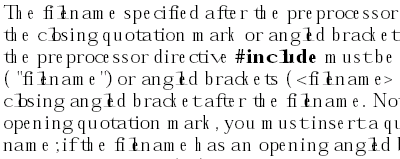
Acrobat Tips: Fonts Can Make or Break PDFs
Acrobat's intelligent font substitution is a godsend for office documents, but it can be a nightmare in situations where font fidelity is important. If you're a graphic designer, then you need to know how to work with fonts in PDFs. PlanetPDF has the answers.
Editor's Note: The following article was written with Acrobat 5 in mind and does not specifically discuss the recently released Acrobat 6, although it has been reviewed for accuracy and relevance to the new software.
A prime reason for using PDF as a format has to do with its ability to retain graphic appearance and layout; Acrobat's font handling mechanisms are a key aspect of the portability of PDF files.
When fonts used in the source file PDF are embedded in the PDF, Acrobat has the original font information at its disposal. If fonts are not embedded, Acrobat uses the partial font information saved in the PDF (name, width of different letters, and style characteristics) to locate the required fonts in the system where the PDF is viewed or (if no fonts are found) to simulate its appearance using substitution fonts.
When graphic fidelity is important, a PDF file should be produced so that all fonts used in it are embedded. While font substitution may be reasonably successful in conveying the general appearance of many fonts, it is a design compromise at best as it will never result in a precise match, and with some fonts it may be unacceptable.
To reduce file size when fonts are embedded, font subsetting can be employed so that only the characters actually used in the PDF will be embedded. As typically only a small portion of the characters included in a font is actually used in a specific document, the result is a significant reduction of font data. This is especially the case with fonts that store many hundreds or even thousands of characters (Far Eastern, Unicode, or OpenType fonts).
Subsetting will limit or prevent editing operations (text editing or insert/replace page operations). This is generally not an issue with PDFs distributed as final documents to be viewed or printed elsewhere. If these editing operations are anticipated as part of the specific PDF life cycle, don't use subsetting. Take into account, however, that subsetting may take place by default already at the PostScript driver level.
Fonts that cannot be reasonably substituted by Acrobat must be embedded, regardless of file size issues. This applies to special symbol/logo fonts, or to fonts with special styles (such as script fonts). Depending on the specific font characteristics, this may take place automatically, even when embedding is turned off, when Acrobat identifies such a font.
To further reduce file size related to font storage, you can specify that the Base-14 fonts will not be embedded. These include the Helvetica, Times, Courier standard font families (regular, italic, bold, bold italic), Symbol, and Dingbats. Acrobat Reader installations include fonts that fully match these fonts' functionally (identical character widths, but a slightly different design). When you decide not to embed fonts, inspect the results of font substitution, which will equally apply to viewing and printing. This can be done with View> Use Local Fonts. When this setting is disabled, fonts that are not embedded in the PDF will be simulated, even if they are installed in the computer where the PDF is viewed. Notice that in some cases, font substitution results in serious spacing problems or highly distorted letter shapes (see Figures 1 and 2).
Figure 1a: Actual Fonts
Figure 1b: Substituted Fonts
Example 2a: Century Schoolbook - Actual Fonts
Example 2b: Century Schoolbook - Substituted Fonts
Example 3a: Frutiger Ultra Black and Myriad - Actual Fonts
Example 3b: Frutiger Ultra Black and Myriad - Substituted Fonts
Font Formats
Acrobat Distiller 5 works equally well with all common font formats:
- PostScript (Type 1)
- TrueType
- OpenType
PostScript Type 3 fonts, in use by some TeX installations, are to be avoided -- as display of resulting text in PDFs will be slow and poor, file size will be larger than it should, and text may not be searchable. Bitmapped Type 3 fonts are sometimes encountered in the PDF even though the original fonts used are valid PostScript or TrueType fonts -- this is usually a result of a malfunctioning PostScript driver (especially on Windows NT).
When purchasing new fonts for use with your authoring applications, make sure that there are no embedding restrictions per the font license.
To view a list of fonts used in a PDF file, choose File> Document Properties> Fonts. When first opened, this displays a list of fonts used in the specific page being viewed (including font format and embedding/subsetting status). Click the "List All Fonts" button to view a list of all fonts used in the document.
Typographic Settings
Be aware that some advanced typographic features (such as ligatures, old-style figures, and small caps), if supported by your authoring program and fonts used, may impair Acrobat's text interpretation and affect text-related functions: Find and Search, Copy/Paste, bookmark created from selected text, and automatic Web link creation. Increased letter spacing can add extra spaces and will also adversely affect text.